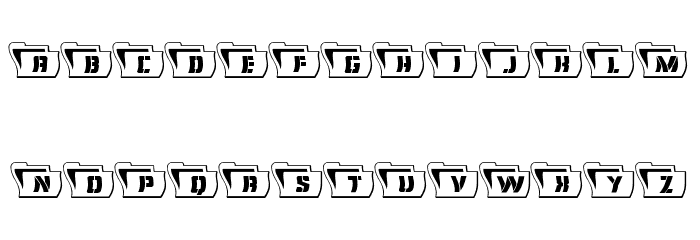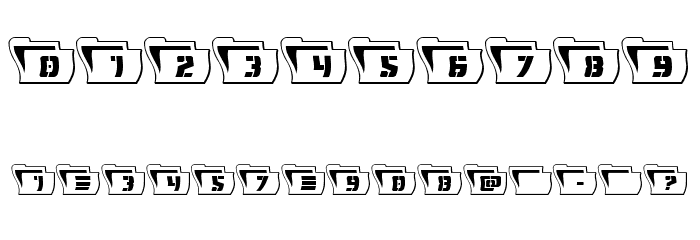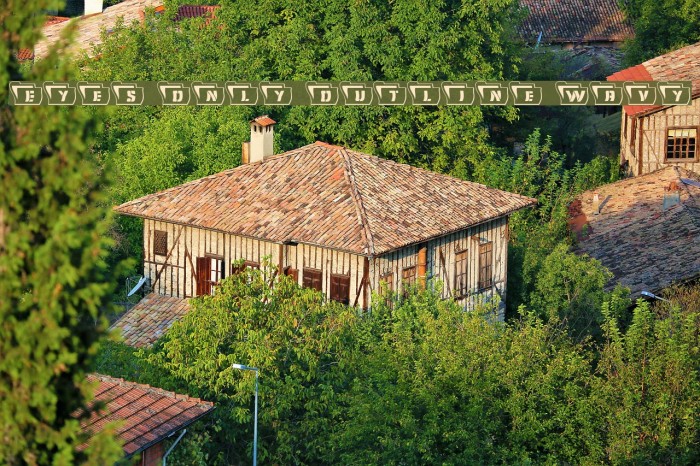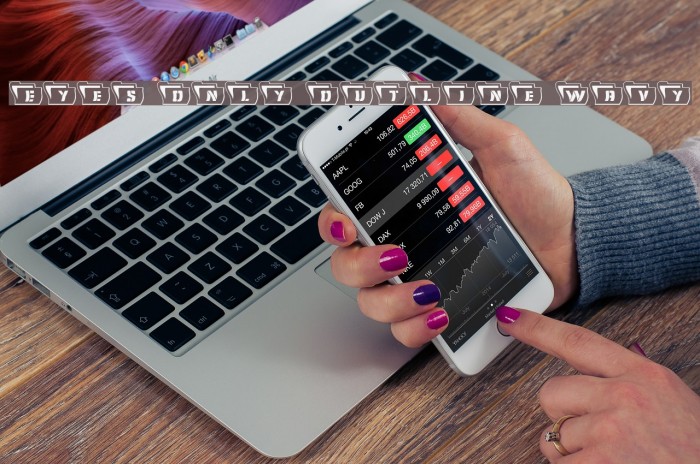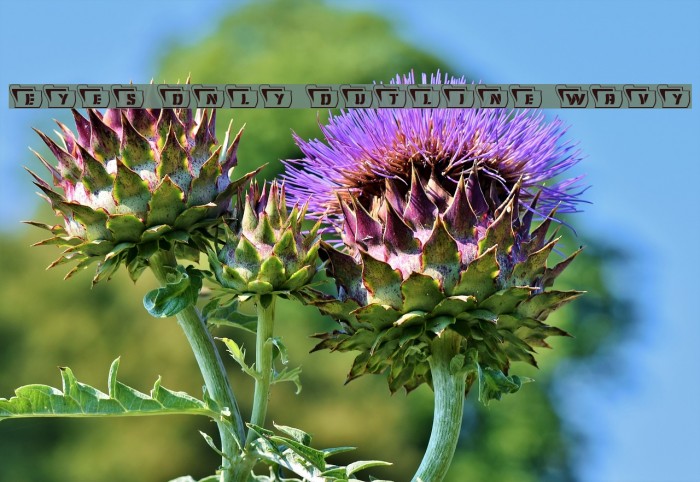
Eyes Only Outline Wavy Font
This font features a bold, outlined style with a wavy, three-dimensional effect that gives each character a distinct shadow. The uppercase and lowercase letters maintain a consistent design, emphasizing a strong, impactful presence. The numerals and special characters follow the same aesthetic, ensuring uniformity across all glyphs. The font's unique outline and shadow create a sense of depth, making it ideal for eye-catching designs. Its boldness and decorative nature make it suitable for projects that require a standout typeface.
A bold, outlined font with a wavy, three-dimensional shadow effect.
- Proposed Projects: Ideal for posters, logos, headlines, and any design requiring a striking, decorative typeface.